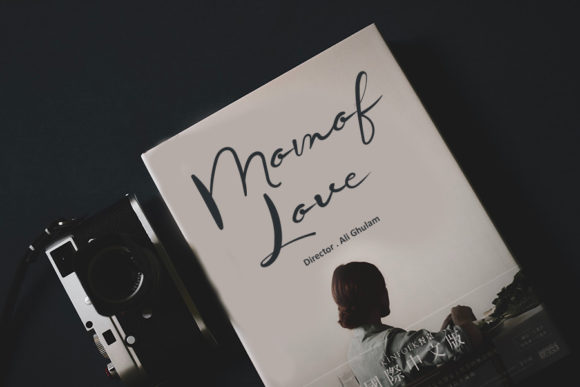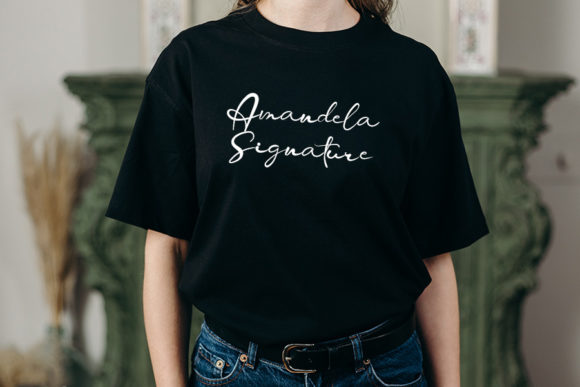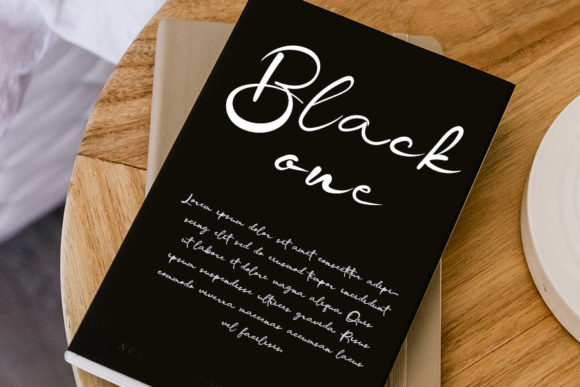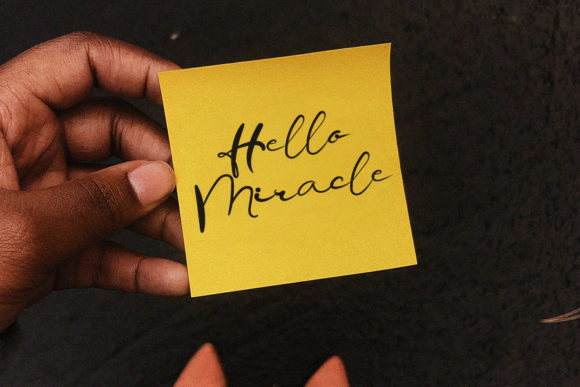
The California Font: A Charming Handwritten Delight for Your Creative Projects
I’ll never forget the moment I stumbled upon the California font while working on a branding project for a client’s boutique shop. I had been searching for the perfect handwritten font to capture the essence of their California-inspired products, but nothing seemed quite right. That was until I discovered California – a cute and charming font that instantly resonated with the project’s vibe. In this article, I’ll share my experience with this beautiful font, its features, and how to make the most of it in your creative projects.
An Honest Review of California Font
So, what makes the California font so special? Let’s dive into the good stuff and a few quirks I’ve noticed.
What I Love About California Font
- ✨ Balanced and varied: The font strikes a perfect balance between being too thin or too thick, making it versatile for various design applications.
- ✅ Elegant yet approachable: California exudes a sense of sophistication while remaining friendly and approachable, perfect for brands looking to convey a warm, personal touch.
- 💕 Handwritten charm: The font’s handwritten nature adds a unique, personal touch to any project, making it stand out from more generic fonts.
While California font is delightful, there are a few things to keep in mind:
- 🤔 Limited use in very large or very small sizes: While the font is generally scalable, it may lose some of its charm when used in extremely large or small sizes. Testing is key.
- ⚠️ Some letters may require manual kerning: As with many handwritten fonts, you might need to adjust the spacing between certain letters for optimal readability and aesthetics.
The Story Behind California Font
California font was designed with the intention of capturing the laid-back, yet elegant vibe of California. The designer aimed to create a font that was not only beautiful but also versatile and easy to read. Through a meticulous process of refinement, California font was born – a charming, handwritten font that has captured the hearts of designers and crafters alike.
Q: Is California font suitable for body text?
A: While California font is beautiful, it’s primarily designed for headlines and short paragraphs. For longer body text, you might find it a bit too ornate.
Q: How does California font compare to other handwritten fonts?
A: California font stands out for its balanced and varied strokes, making it both elegant and approachable. It’s a great choice for projects that need a personal touch without being too whimsical.